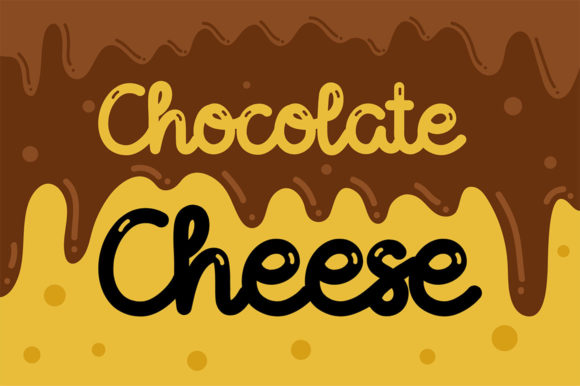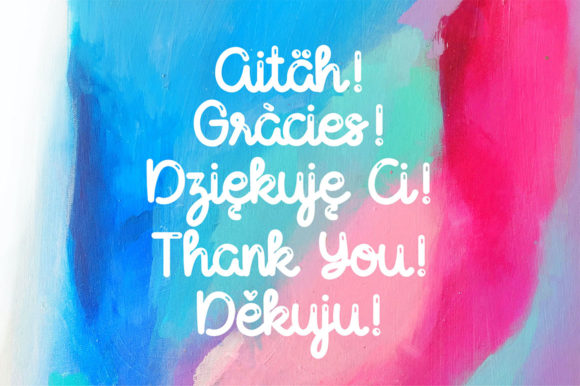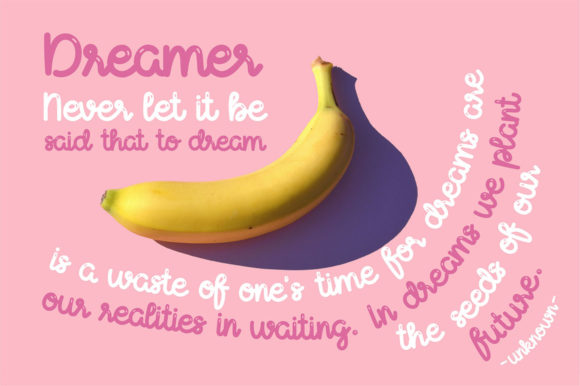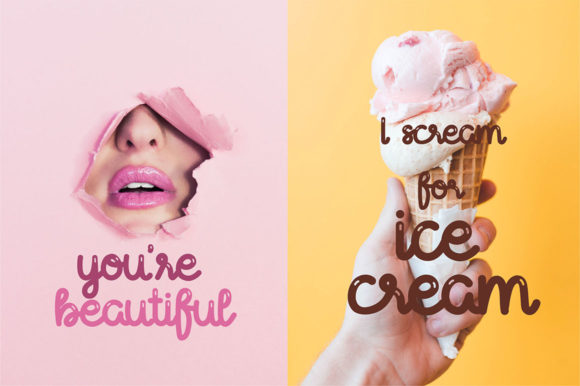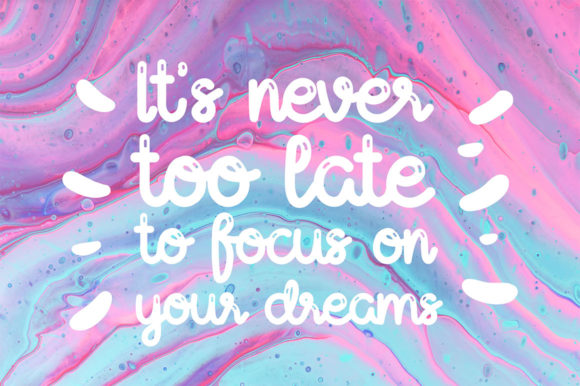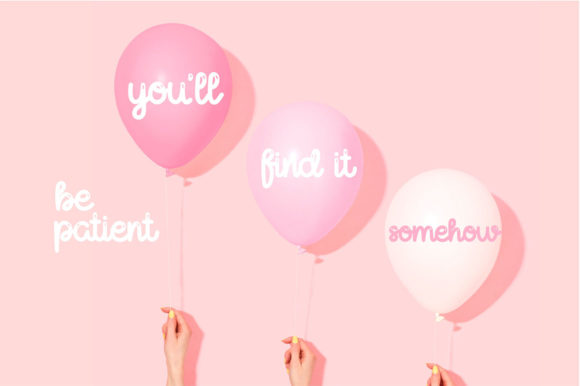
About Chocolate Cheese Font
Chocolate Cheese is a cute and casual handwritten font with an incredibly friendly feel. Whether you’re looking for fonts for Instagram or calligraphy scripts for DIY projects, this font will turn any creative idea into a true piece of art!